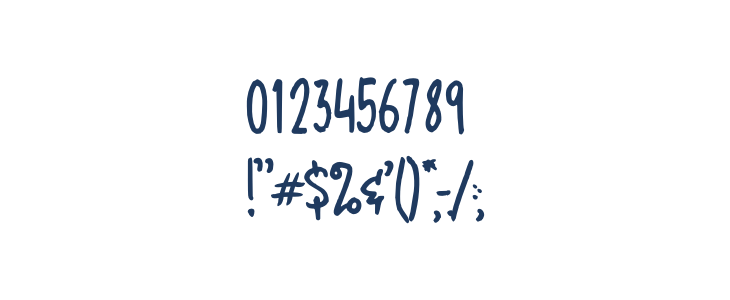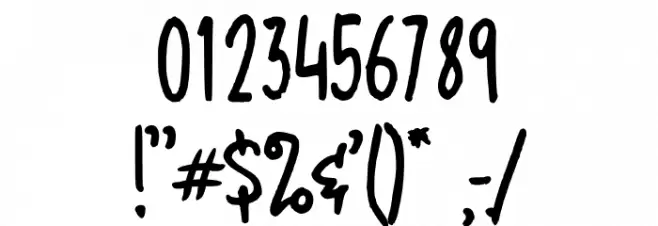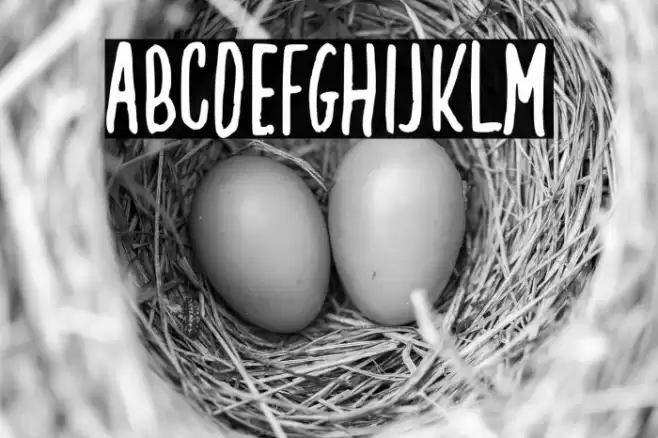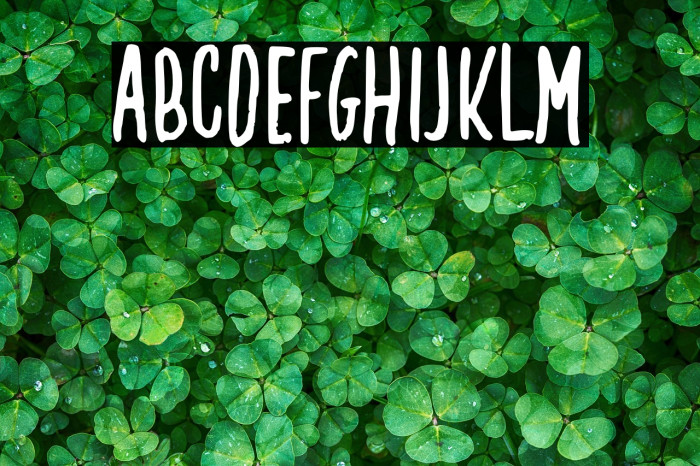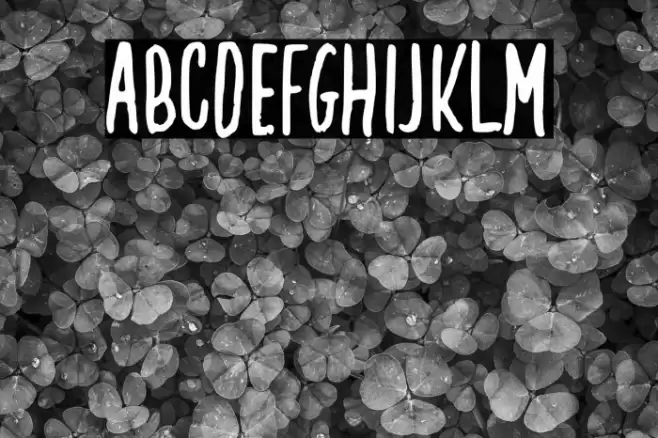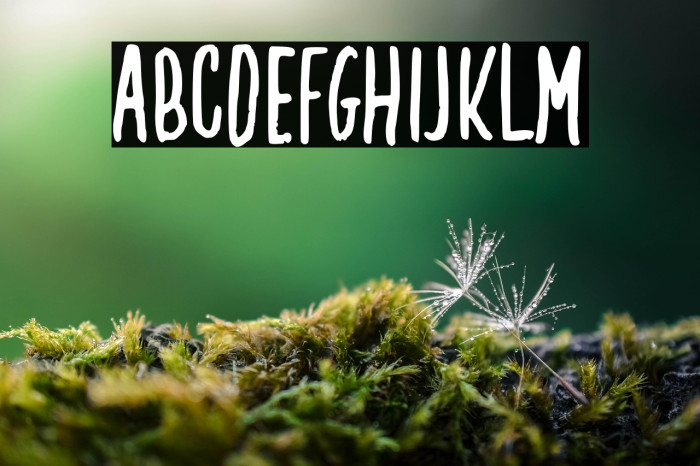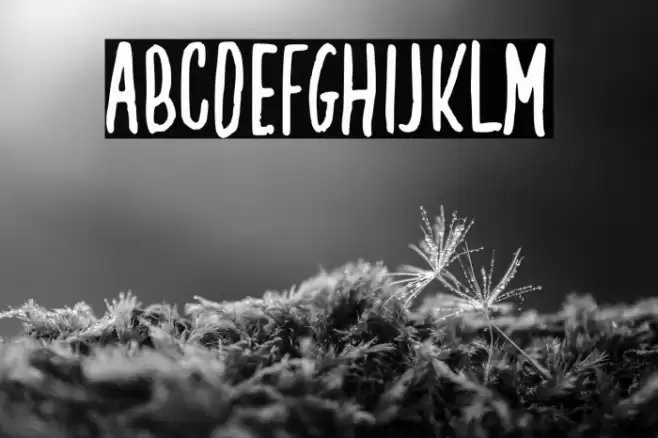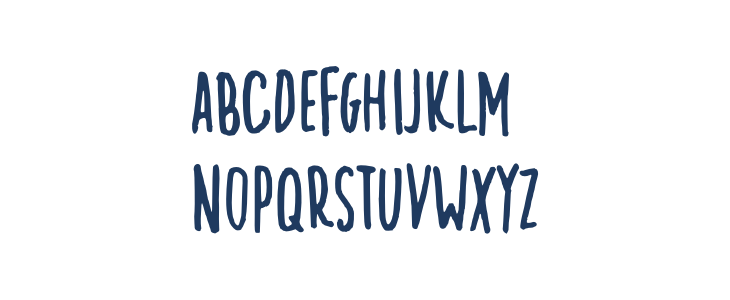
Creamy Coconut Font
Creamy Coconut Description
This font features a playful and organic handwritten style, characterized by its uneven strokes and casual appearance. The letters have a slightly irregular baseline, giving them a dynamic and lively feel. The uppercase and lowercase letters maintain a consistent style, with rounded edges and a friendly demeanor. The numbers and special characters complement the alphabet with the same whimsical touch. This font is perfect for projects that require a personal and approachable aesthetic, such as invitations, greeting cards, or branding for artisanal products.
| Proposed Projects | Ideal for invitations, greeting cards, artisanal product branding, and casual social media graphics. |